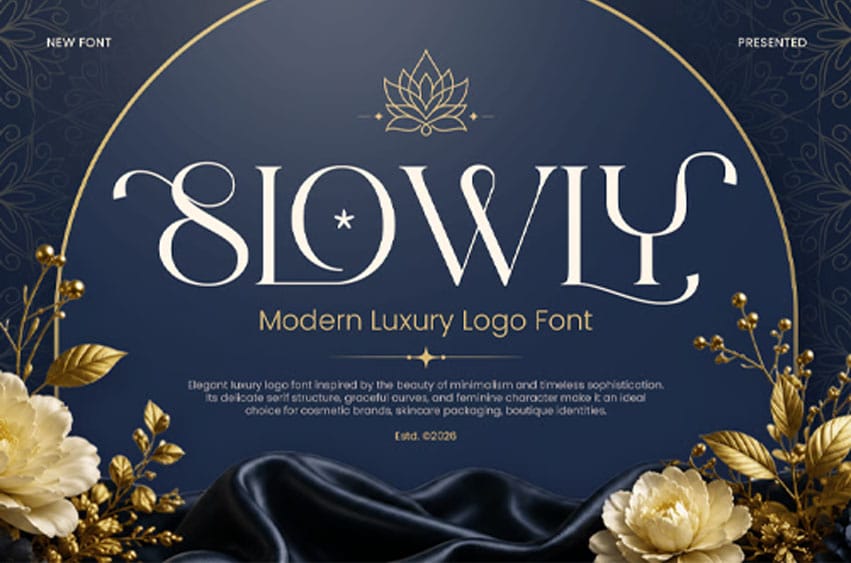
Slowly Font is a modern luxury logo font designed to create elegant and memorable visual identities. With refined letterforms, balanced proportions, and a sophisticated contemporary style, this typeface is perfect for luxury logos, fashion branding, premium packaging, editorial layouts, and high-end creative projects.
Crafted for designers who appreciate modern simplicity with a luxurious touch, SLOWLY combines clean aesthetics with a premium visual presence. Its graceful character shapes help transform brand names, headlines, and design compositions into refined expressions of elegance and sophistication.
Whether used for fashion labels, beauty brands, boutique identities, wedding stationery, lifestyle products, or premium marketing materials, SLOWLY delivers a polished typographic experience across both print and digital media.
SLOWLY – Modern Luxury Logo Font Features
- Modern luxury style with elegant logo-focused letterforms
- Perfect for branding, logos, packaging, editorials, and premium identities
- Refined shapes with sophisticated visual balance
- Ideal for fashion, beauty, lifestyle, wedding, and boutique brands
Create a refined luxury identity with SLOWLY – the perfect modern logo font for elegant branding, premium packaging, and sophisticated design projects.